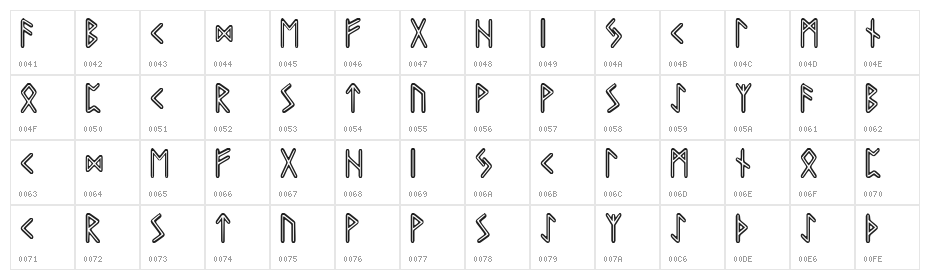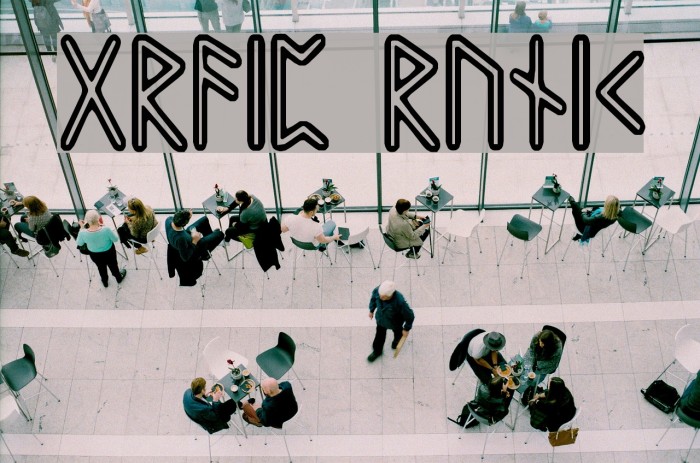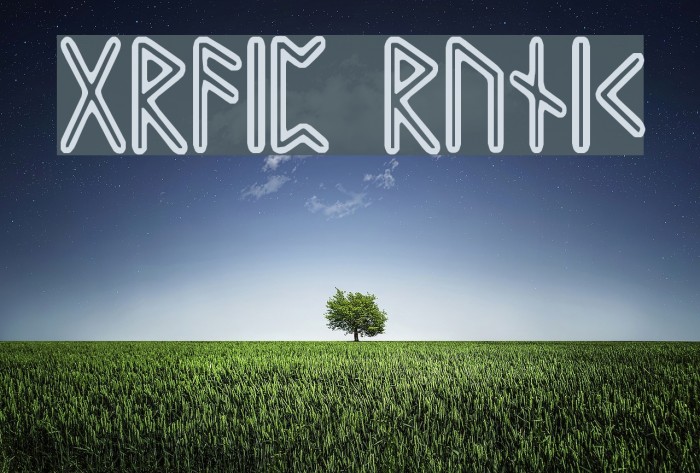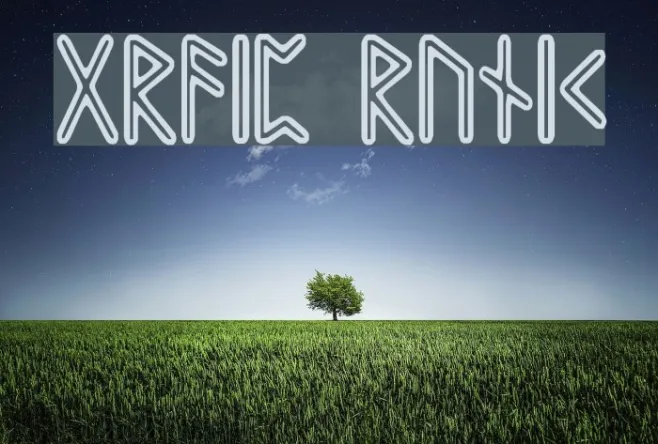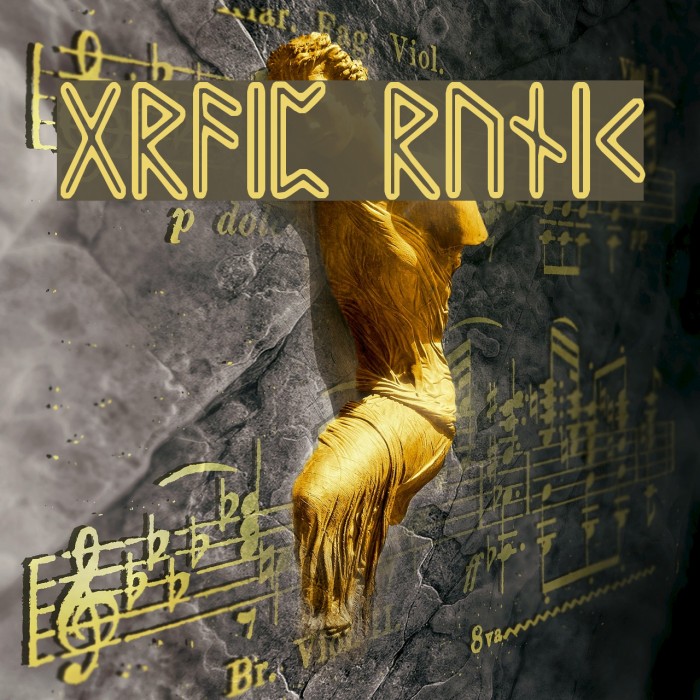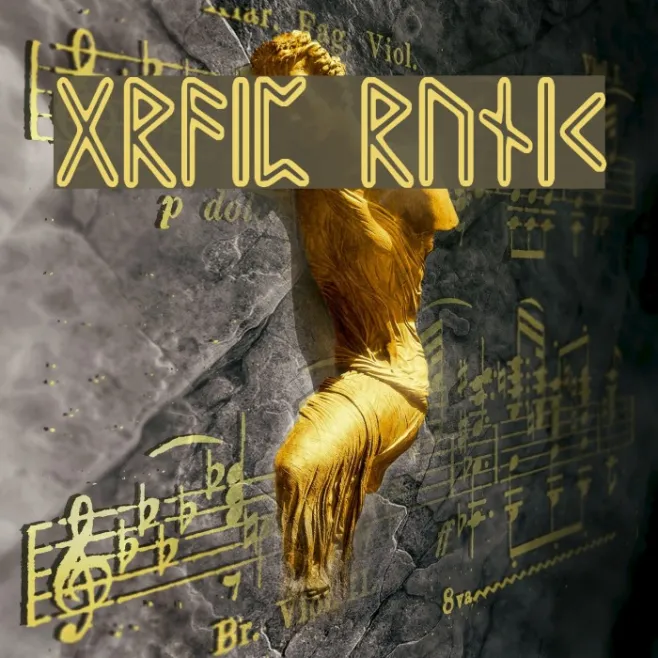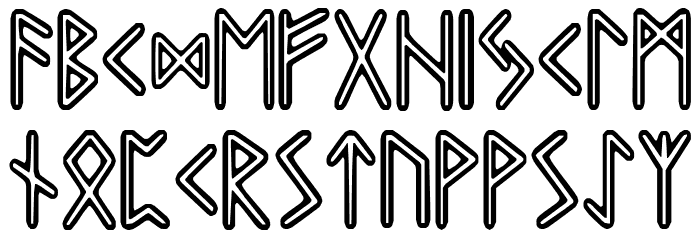
Graip Runic Font
Graip Runic Description
This font is inspired by ancient runic alphabets, featuring angular and geometric shapes that evoke a sense of mystery and antiquity. Each character is constructed with bold, straight lines and sharp angles, creating a distinct and easily recognizable style. The design is reminiscent of inscriptions found on ancient stones and artifacts, making it ideal for projects that require a historical or mythical aesthetic. The uniformity in line thickness and the consistent use of angular forms give it a cohesive and structured appearance.
| Use Case | Logos, Headlines, Decorative elements |
| Proposed Projects | Ideal for fantasy-themed designs, historical recreations, game titles, and decorative posters. |